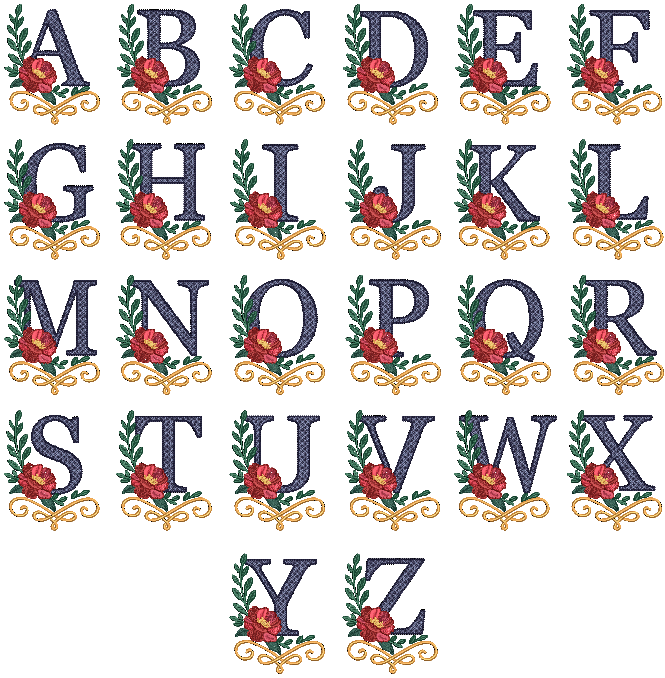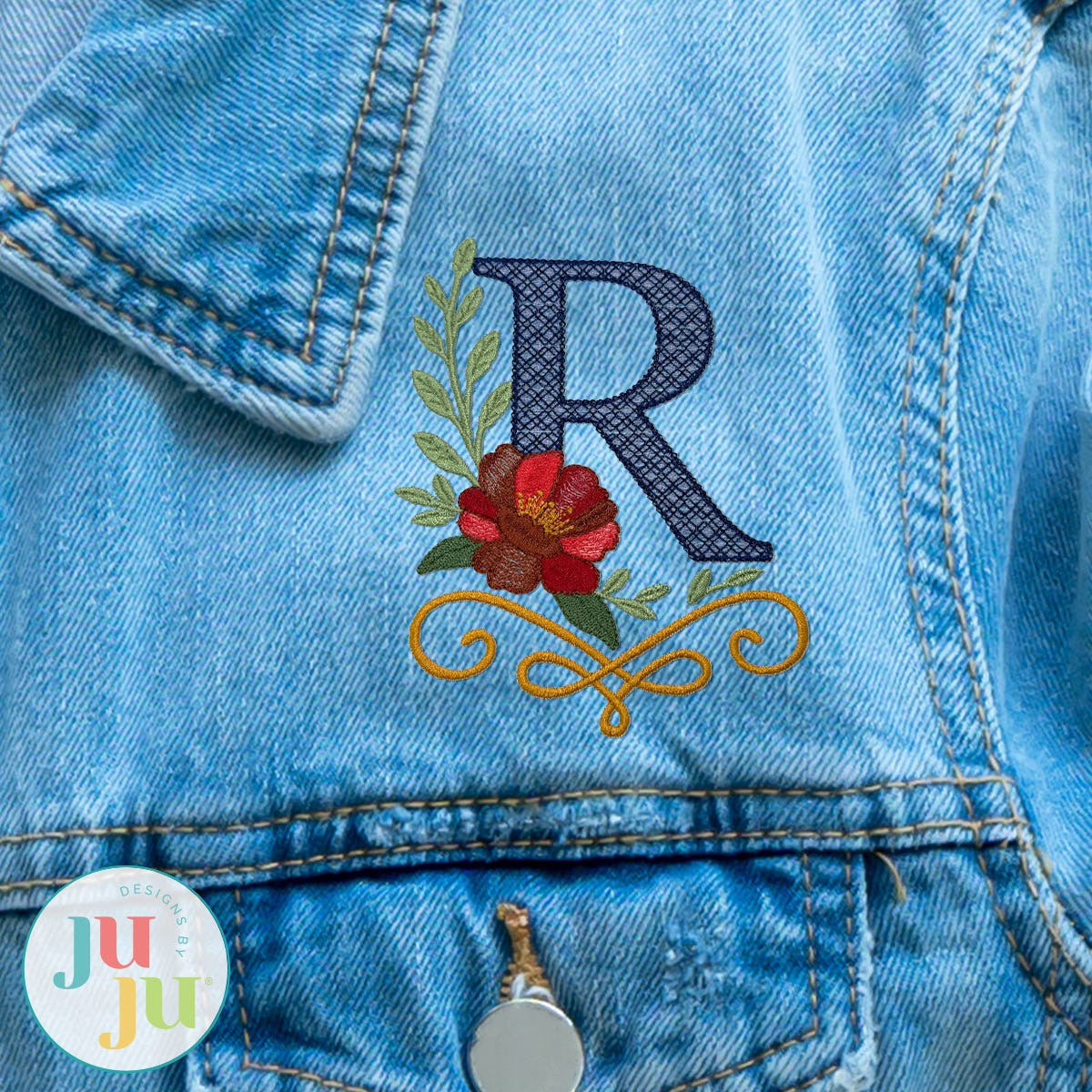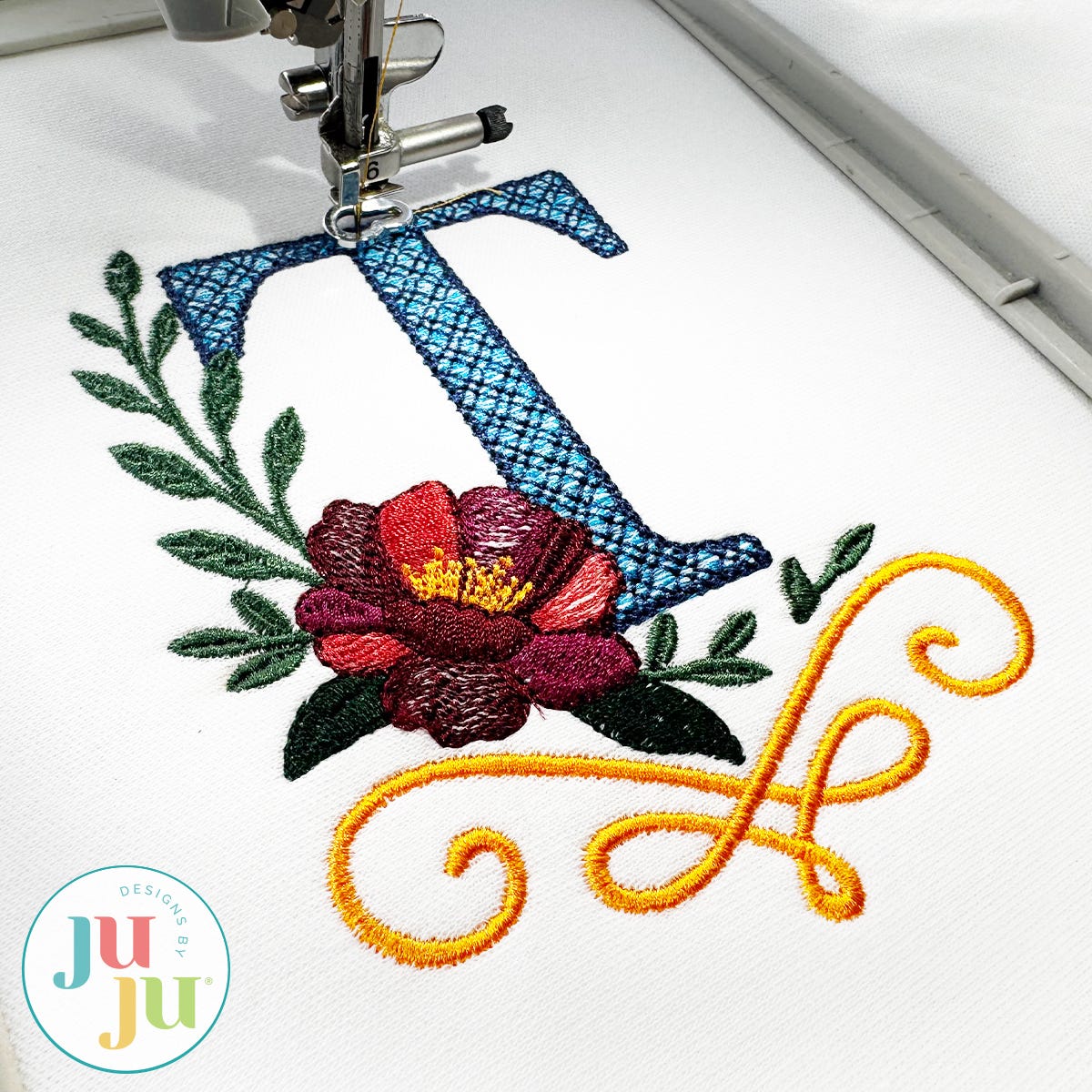
Flower Scroll Monogram Embroidery Font
Your monograms will blossom into beautiful projects with our embroidery-only Flower Scroll Monogram!
The letters feature a variety of lovely stitch types including motif fill stitching that mimics a plaid look. Each letter is accented with florals and a beautiful scroll as shown. To maximize stitch efficiency, overlapped stitches have been removed; therefore, the florals cannot be skipped. A variety of embroidery stitch types are used, including sketch fill elements. The space between each line of stitching varies such that it is more dense on one side of the shape than the other to create the shading effect. We do NOT recommend resizing designs with sketch elements in software.